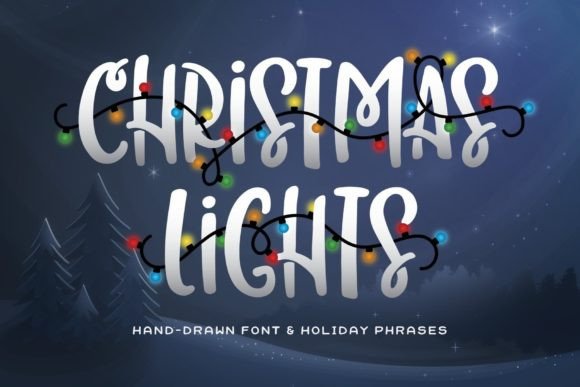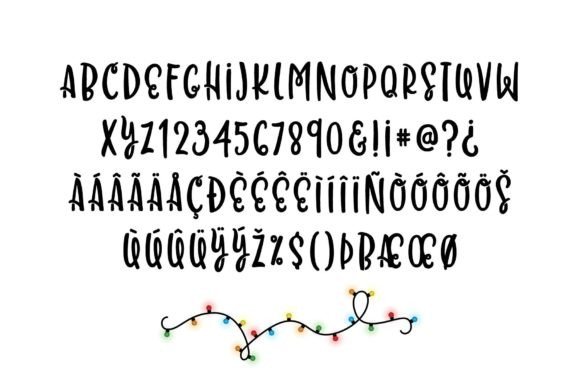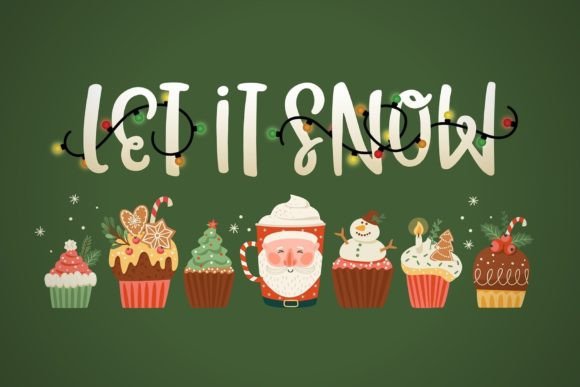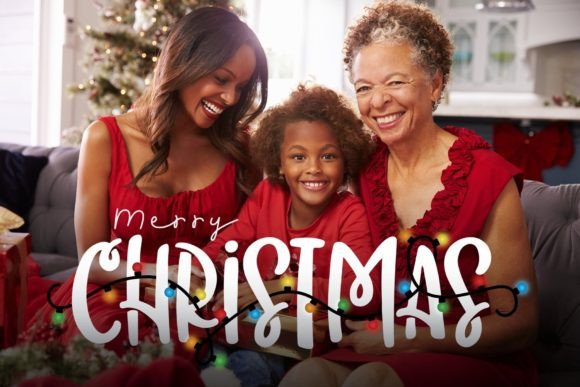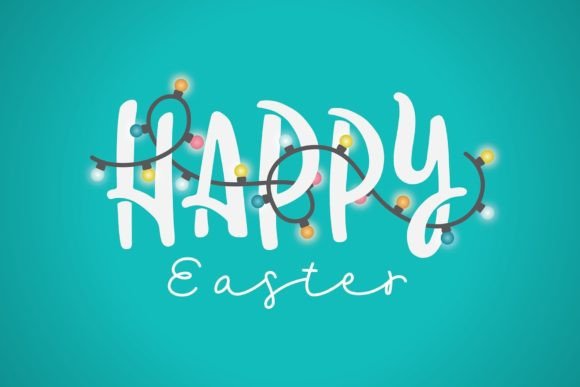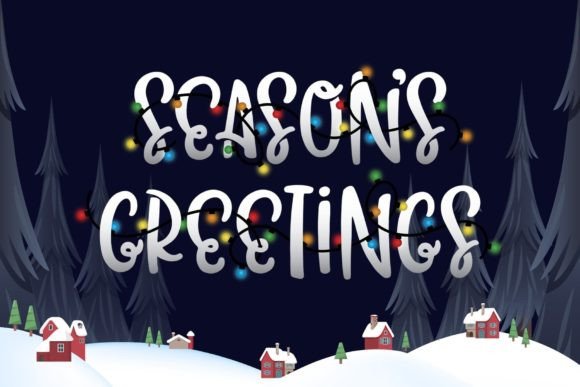
About Christmas Lights Font
Introducing “Christmas Lights,” a bold, all-caps font bursting with character and festive charm. This font is designed to capture the joyful spirit of the holiday season, making it a perfect choice for various Christmas-themed projects. In addition to the font, the pack includes holiday words adorned with stringed lights, adding an extra layer of visual appeal and seasonal flair.
The bold, all-caps style of “Christmas Lights” ensures a strong and eye-catching presence. This makes it ideal for creating attention-grabbing headlines, titles, and festive text elements in your Christmas designs.
The font’s tons of character contribute to its lively and celebratory vibe, enhancing the overall festive atmosphere of your projects. Whether used in digital or print media, “Christmas Lights” adds a touch of holiday magic to your text.
The inclusion of holiday words decorated with stringed lights adds a delightful and whimsical element to the font pack. These pre-designed elements provide a quick and festive solution for creating Christmas-themed graphics, invitations, cards, and more.
“Christmas Lights” is versatile and can be applied to a range of holiday-themed projects, from social media posts and banners to greeting cards and invitations. Its bold and festive nature ensures that your Christmas messages are delivered with impact and style.
In summary, “Christmas Lights” is not just a font; it’s a festive design tool that brings boldness, character, and holiday cheer to your Christmas creations. Embrace the merry spirit of the season as you use this font to illuminate your designs with festive warmth and joy.